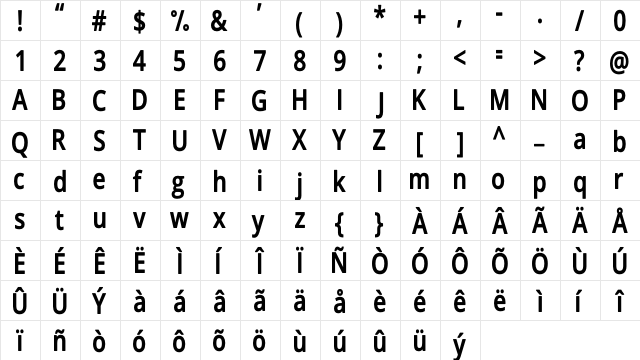
Novus-Regular Regular
Design Context for Novus-Regular Typeface
Novus-Regular takes a measured approach to typography — its balanced proportions and neutral character make it a reliable workhorse for both digital and print work.
Pro Tip: Use Novus-Regular in both headline and body roles to test its range before committing to a single application.